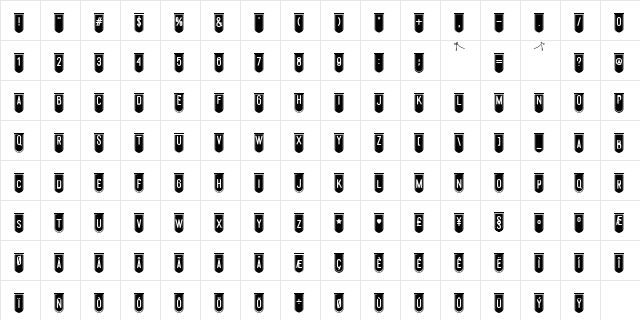
SwEeT yElLoW Regular
| Foundry | Suandana Ipandemade |
Design Context for SwEeT yElLoW Typeface
SwEeT yElLoW is a composed and adaptable typeface that performs quietly and consistently across a wide range of design contexts.